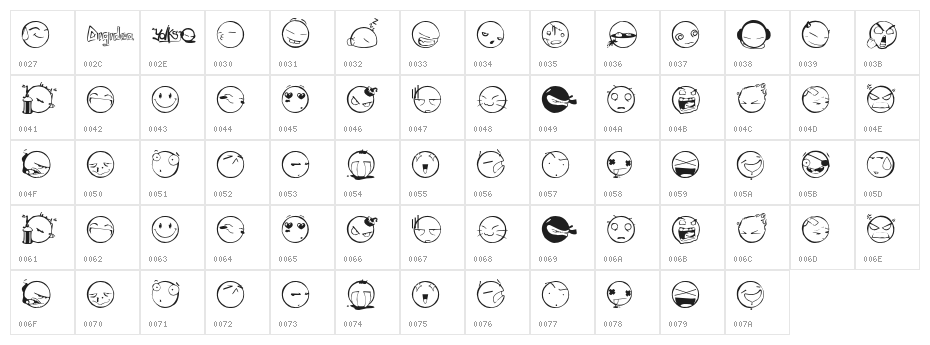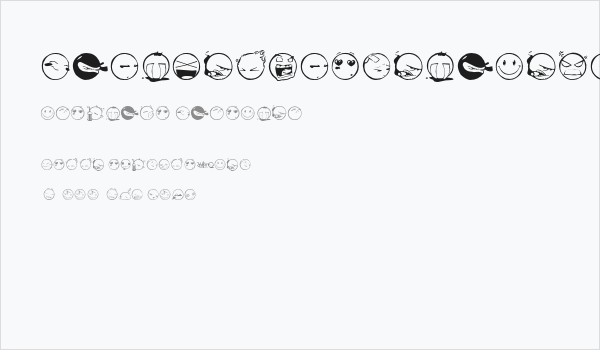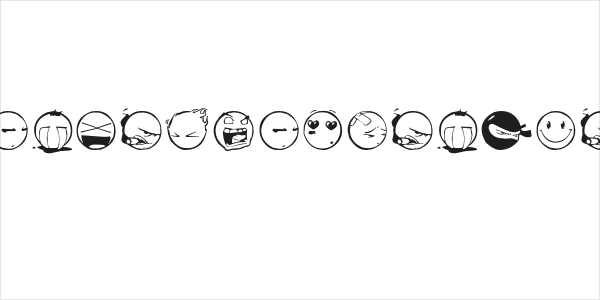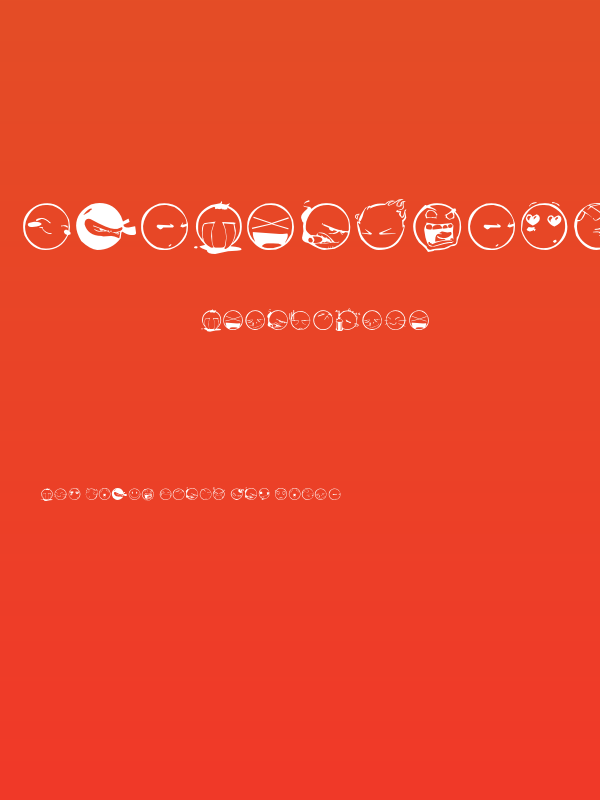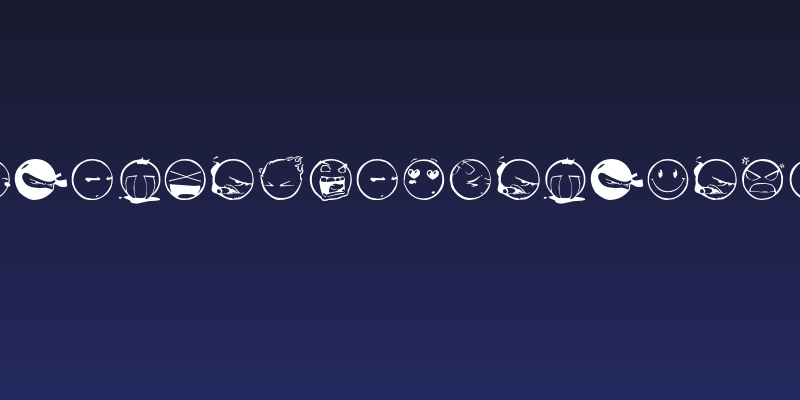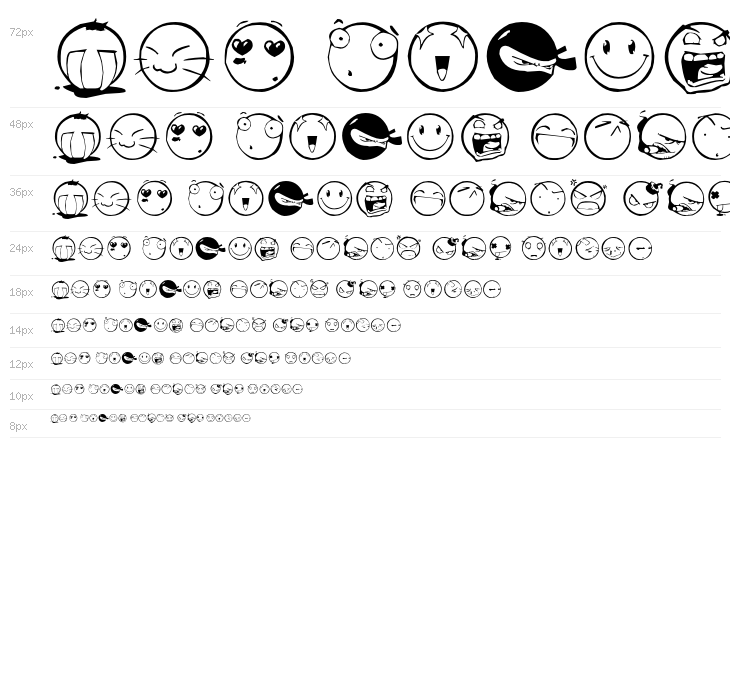
DISTYolksEmoticons Font
DISTYolksEmoticons Description
A playful and expressive decorative font where each character is represented by a unique hand-drawn emoticon face, conveying a wide range of emotions and personalities. The style is informal, sketchy, and cartoon-like, with irregular line work and varying stroke thicknesses.
Overall StyleDecorative, Playful, Cartoonish
Use CaseLogos, Headlines, Posters, Social media, Informal projects
Proposed ProjectsChildrenÒ€ℒs books, comic strips, playful branding, party invitations, social media graphics, novelty merchandise.